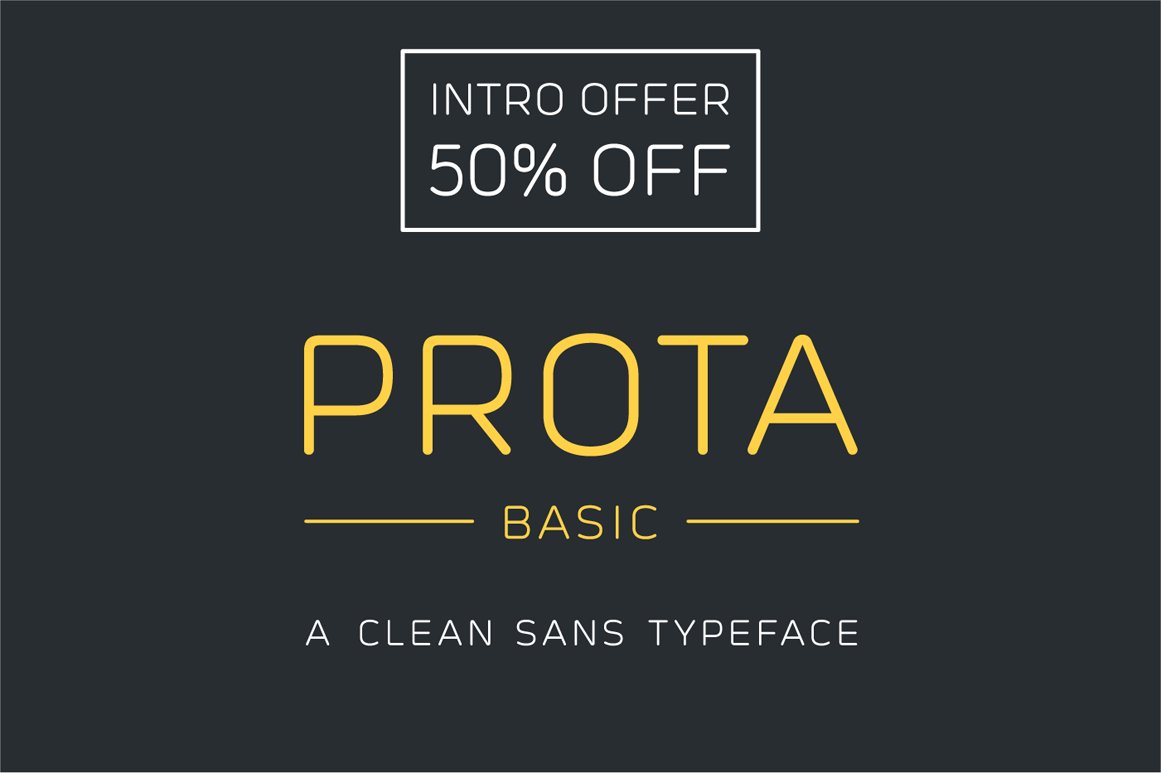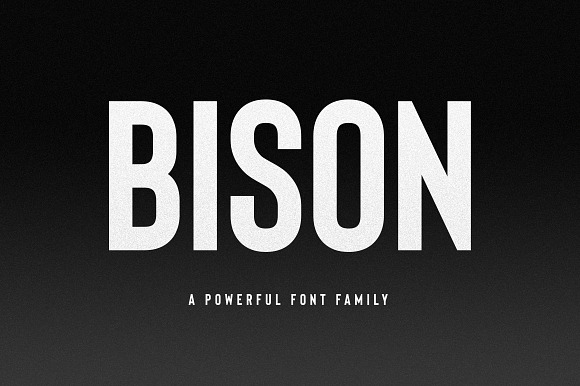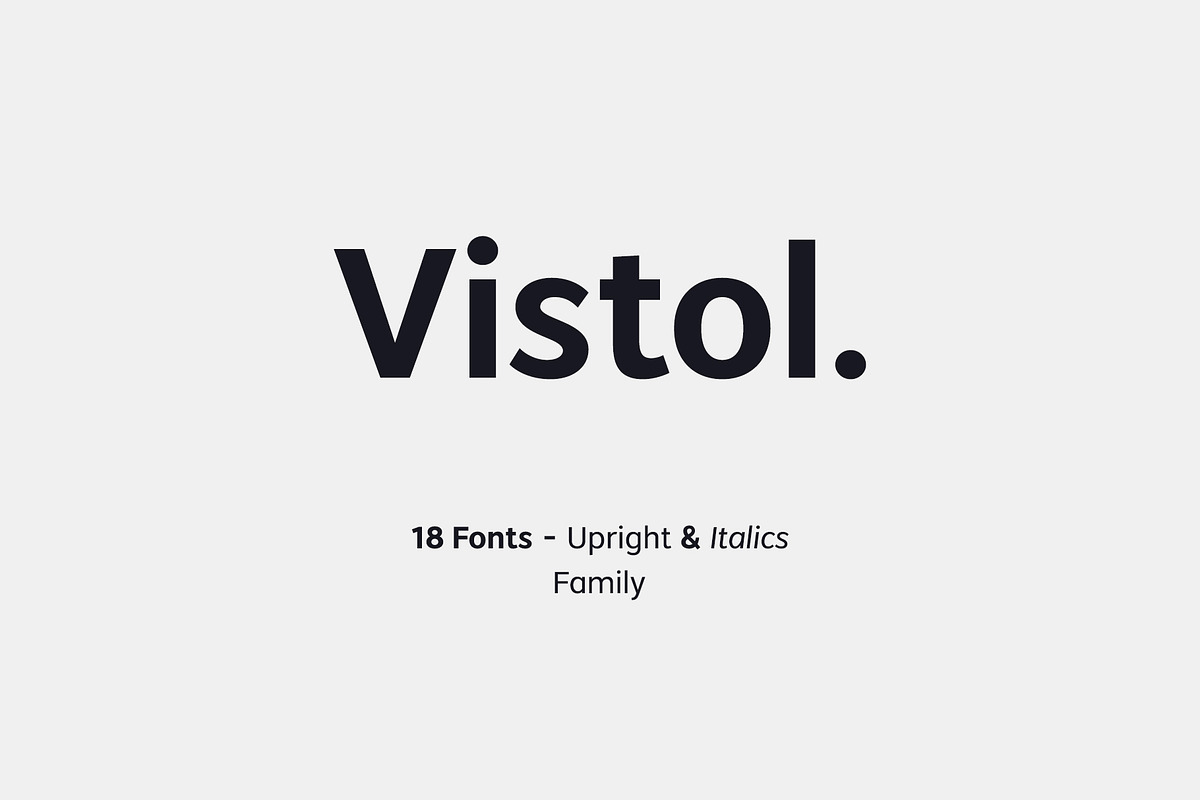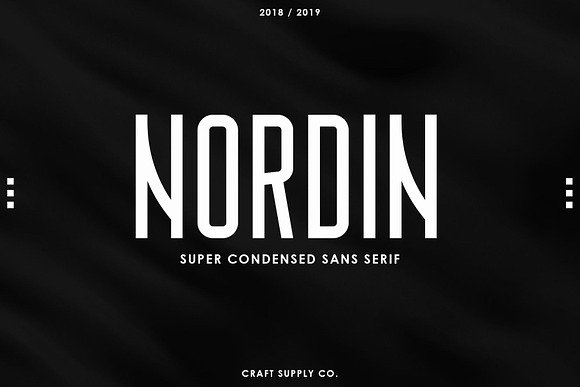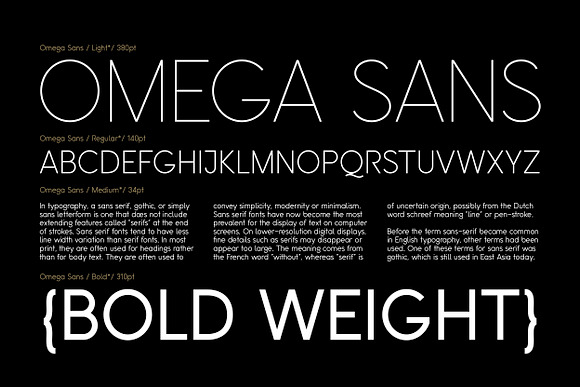
Sans serif fonts work at smaller font sizes than that of serif fonts due to their minimalism and lack of intricacy.
New sans serif fonts. They are often used to convey simplicity and modernity or minimalism. While serif fonts are known to be more traditional sans serif fonts bring that much needed modernistic touch to the design. It is a humanist sans serif typeface designed by eminent canadian type designer rod mcdonald and produced by patrick griffin and kevin king of canada type to honour john gibson fgdc rods long time friend and one of the original founders of the society of graphic designers of canada gdc. Sans serif fonts have become the most prevalent for display of text on computer screens.
Sans serif fonts tend to have less stroke width variation than serif fonts. In typographic terms serifs are the small strokes or extensions at the end of a longer stroke such as the leg of a k or r there are several styles of sans serif fonts including geometric sans serifs like futura humanist sans serifs like frutiger grotesque sans. The minimalistic look behind sans serif fonts makes them a perfect choice when trying to teach children how to write. We have 1635 free sans serif fonts to offer for direct downloading 1001 fonts is your favorite site for free fonts since 2001.
On lower resolution digital displays fine details like serifs may disappear or appear too large. Sans serif typefaces first originated in the eighteenth century but didnt see widespread use until the nineteenth century. A sans serif font is as the name implies a font without serifs. Sans serif fonts as you might already know are the fonts with no projecting lines at the ends.
In the print world serif typefaces are almost universally used for setting running body text however on the web sans serifs dominateon lower resolution displays sans serifs tend to display better however higher resolution displays can better handle the fine.